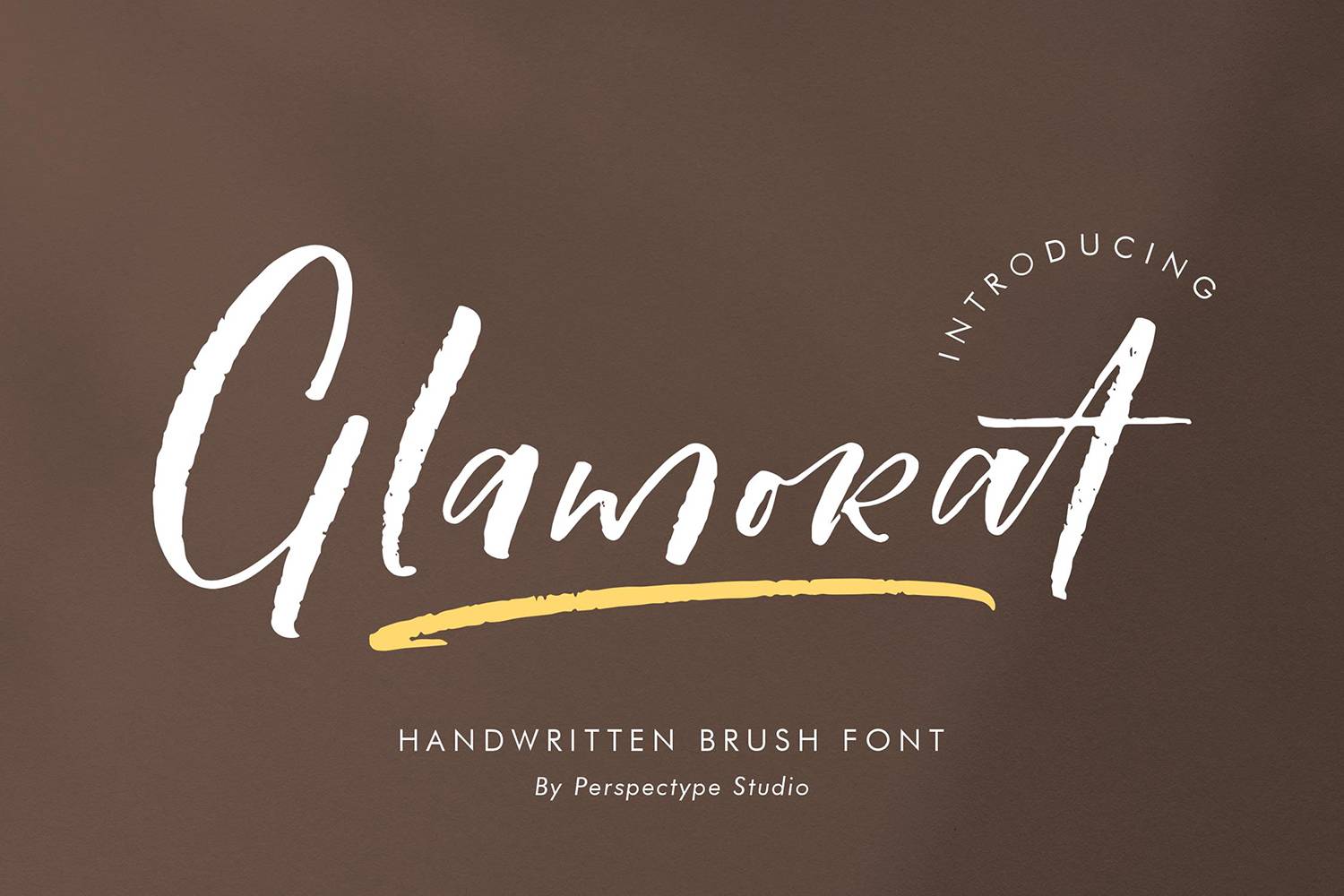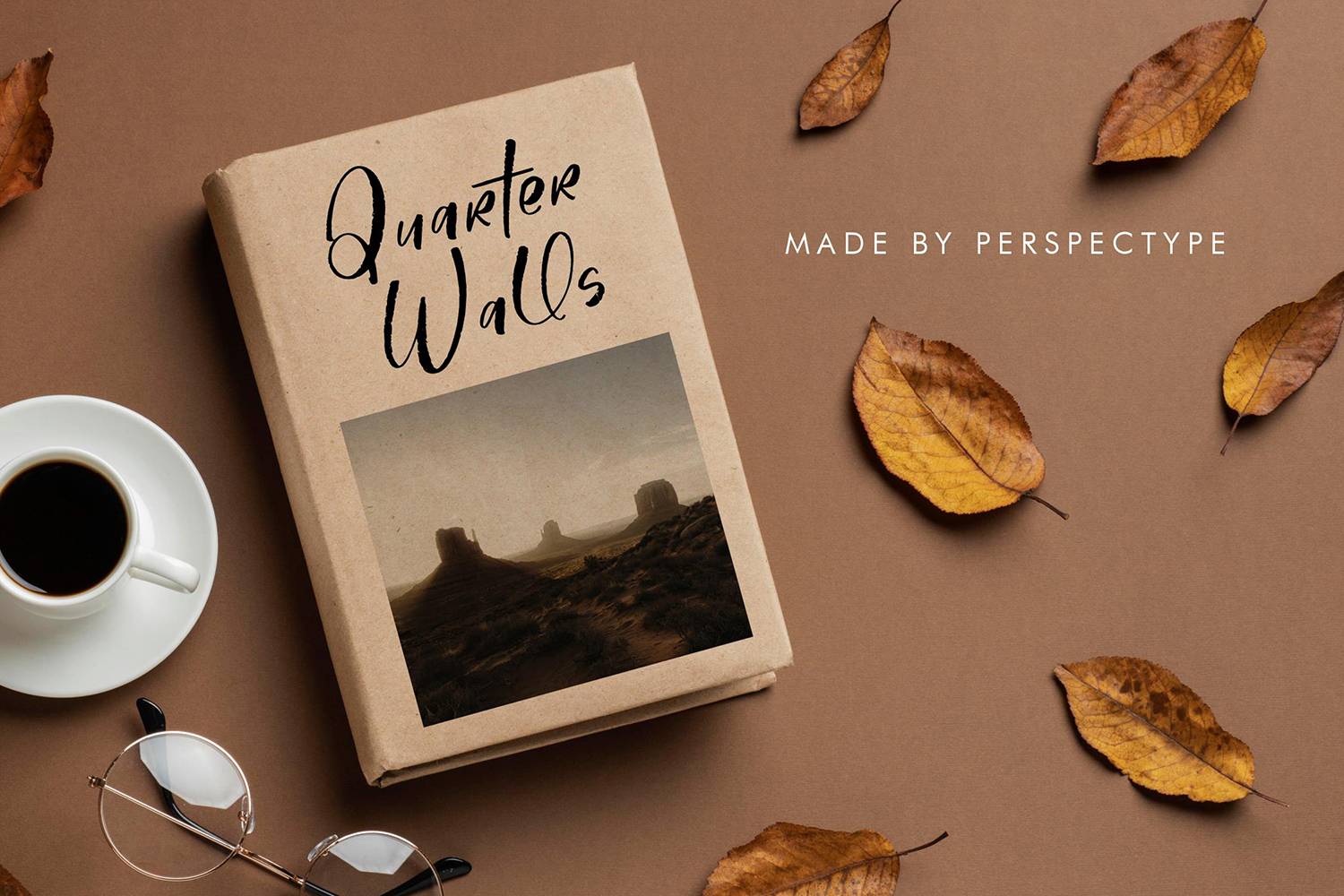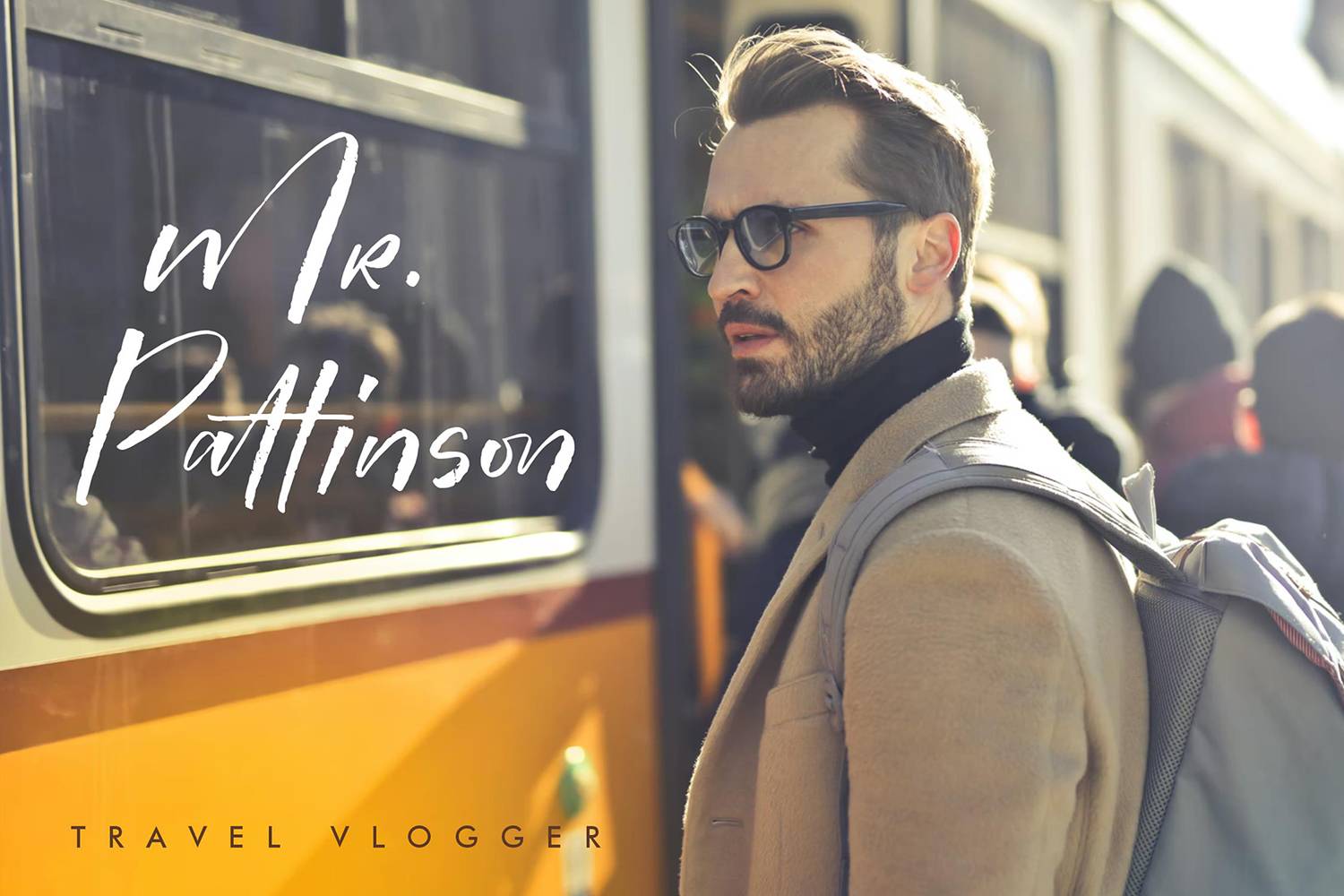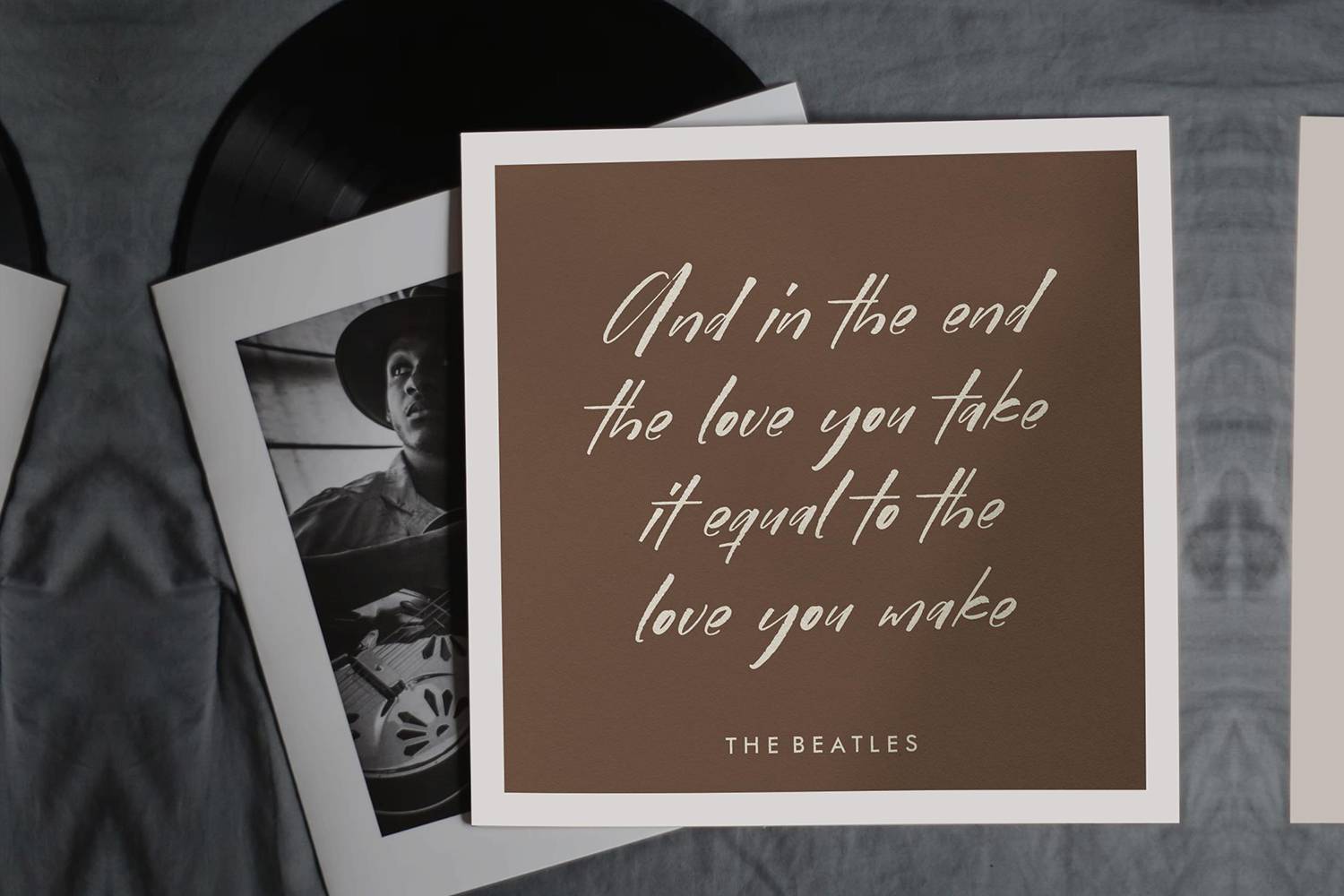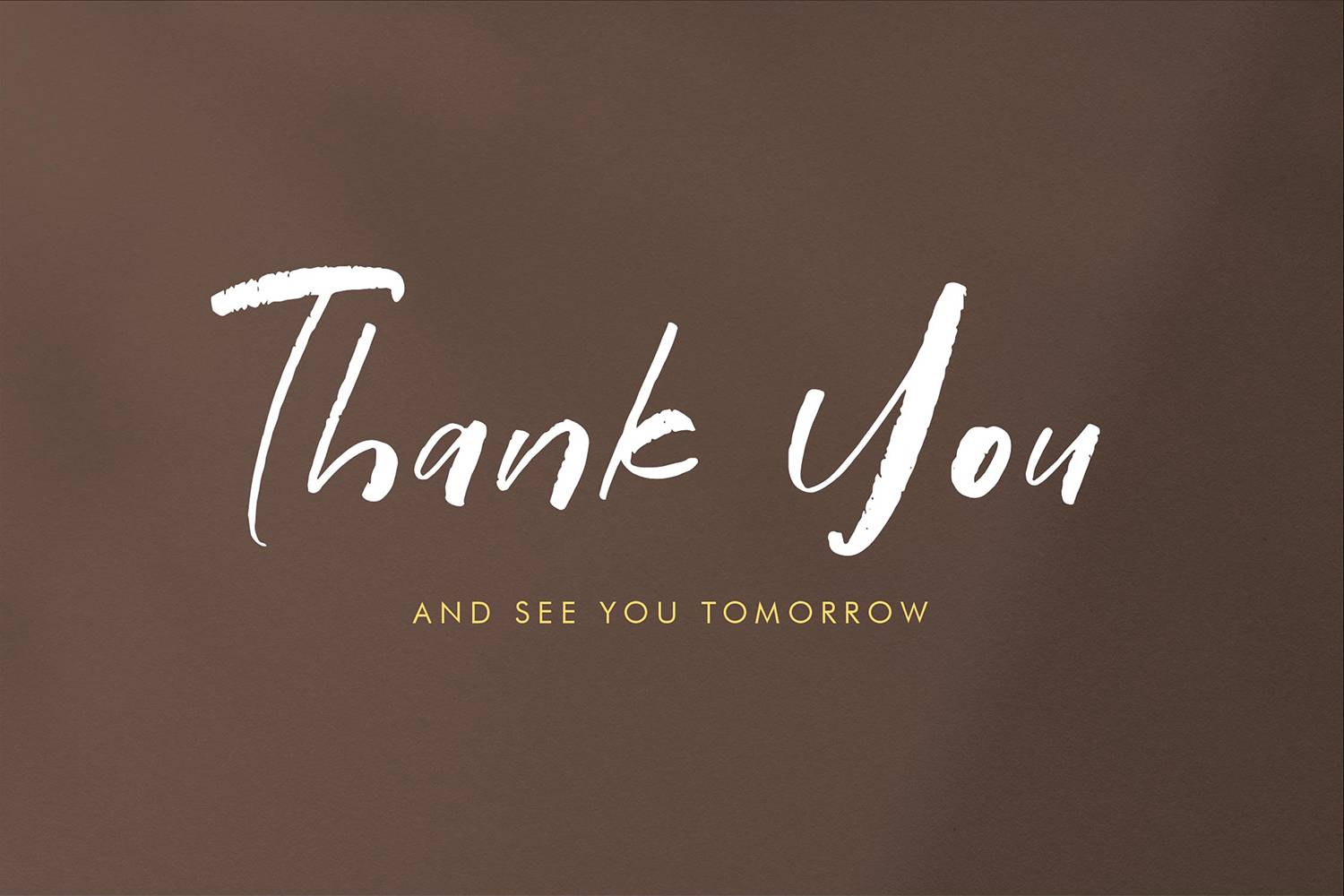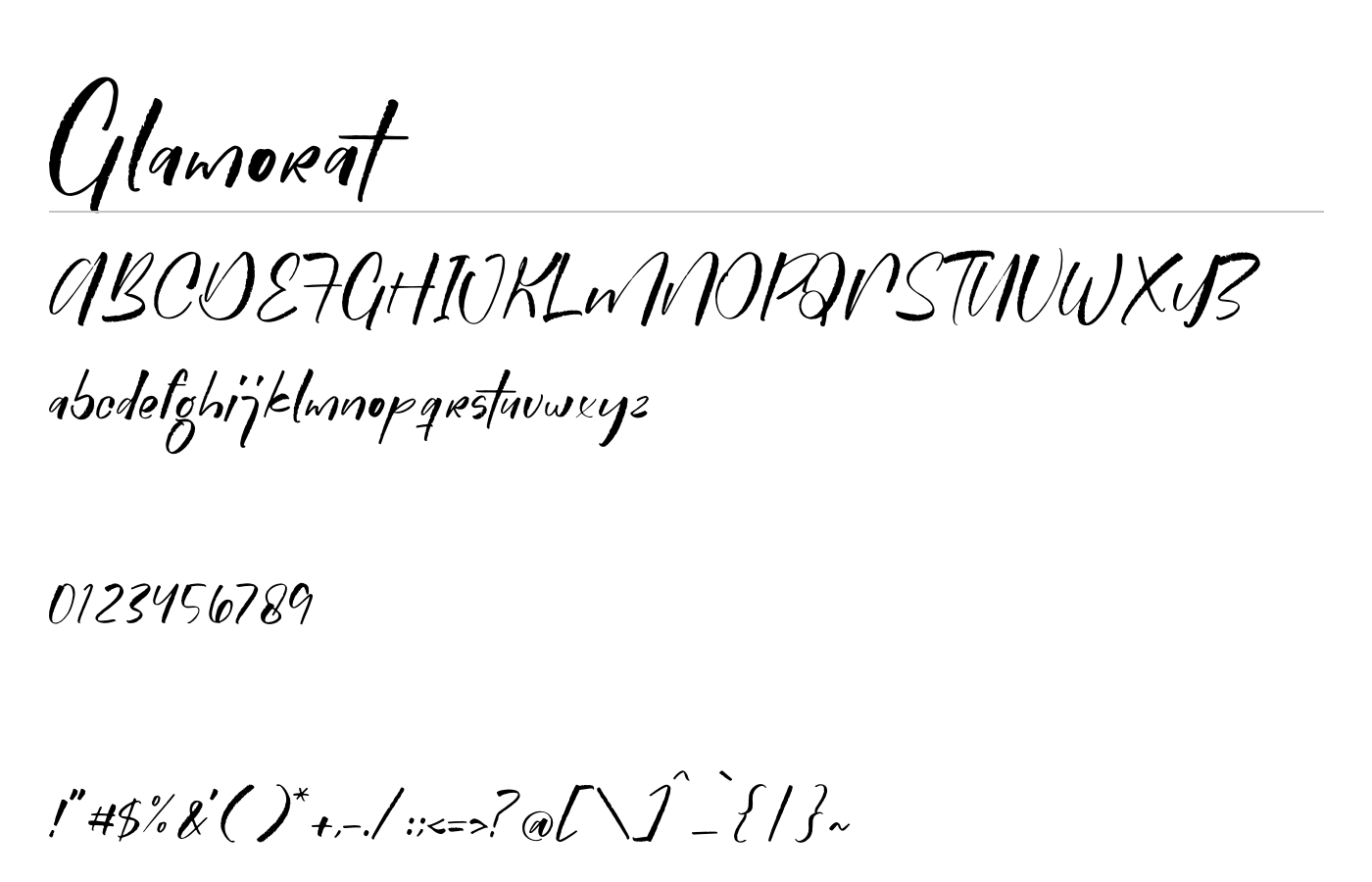
Glamorat is a stylish, handwritten script font that combines elegant brush strokes with a casual, artistic flair. Its varying stroke weights and fluid letterforms give it a lively and personal touch, perfect for creating sophisticated yet approachable designs in branding, invitations, and creative projects. This font works beautifully where a modern, expressive, and slightly informal feel is desired.
Glamorat Font
About Glamorat Font